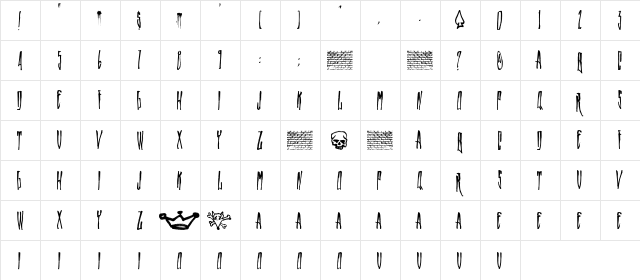
WALLRIDE Regular
| Foundry | BILLY ARGEL |
| Designer | BILLY ARGEL |
Design Context for WALLRIDE Typeface
WALLRIDE is a composed and adaptable typeface that performs quietly and consistently across a wide range of design contexts.